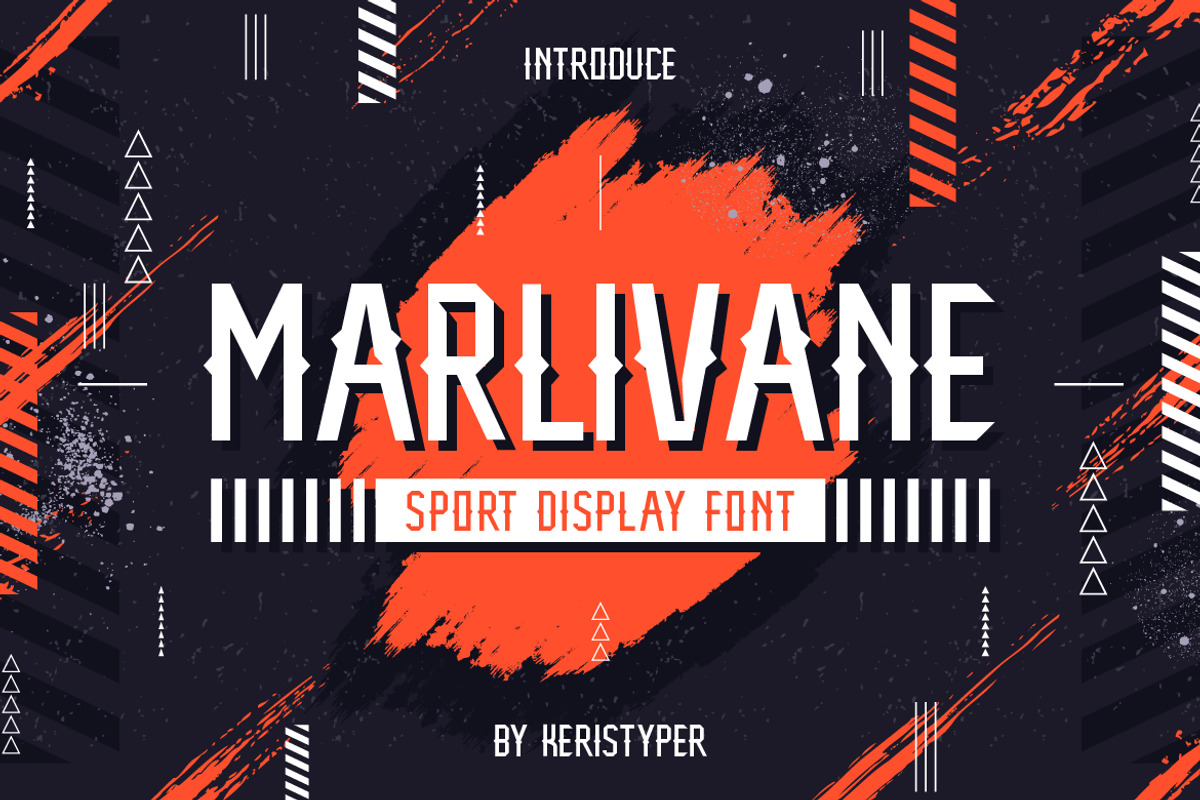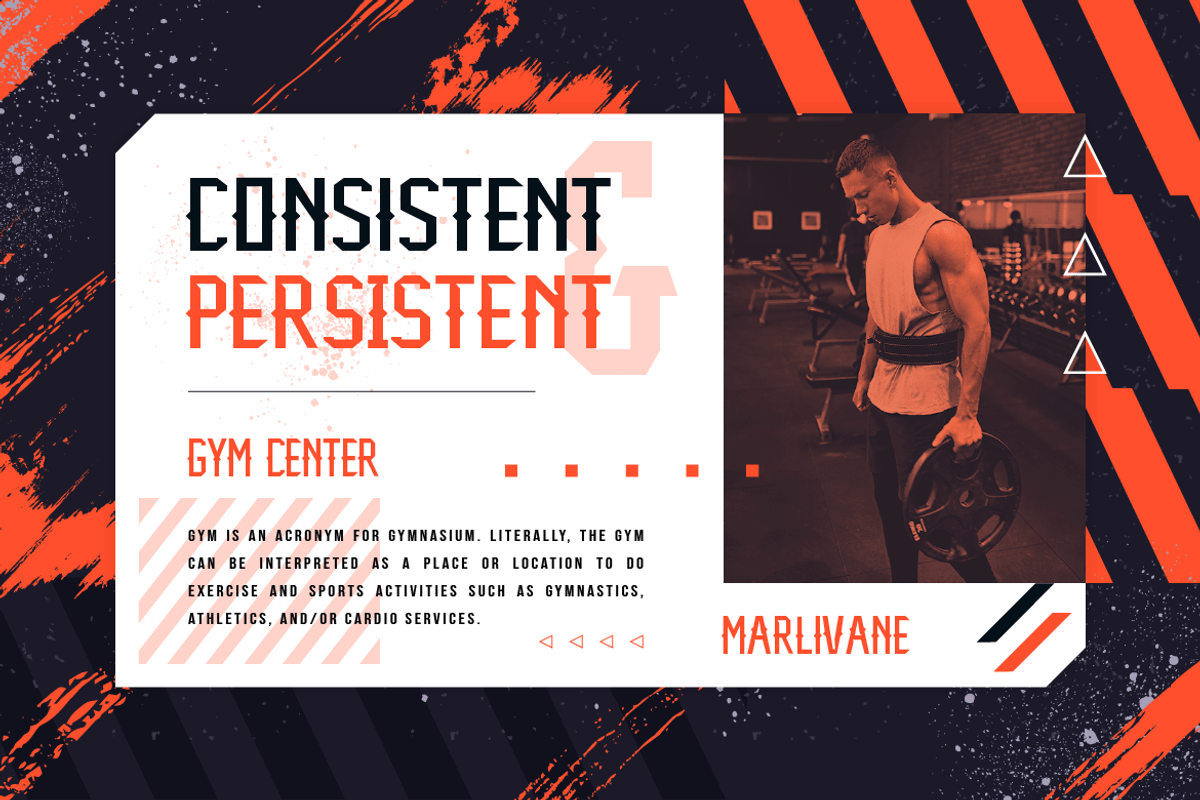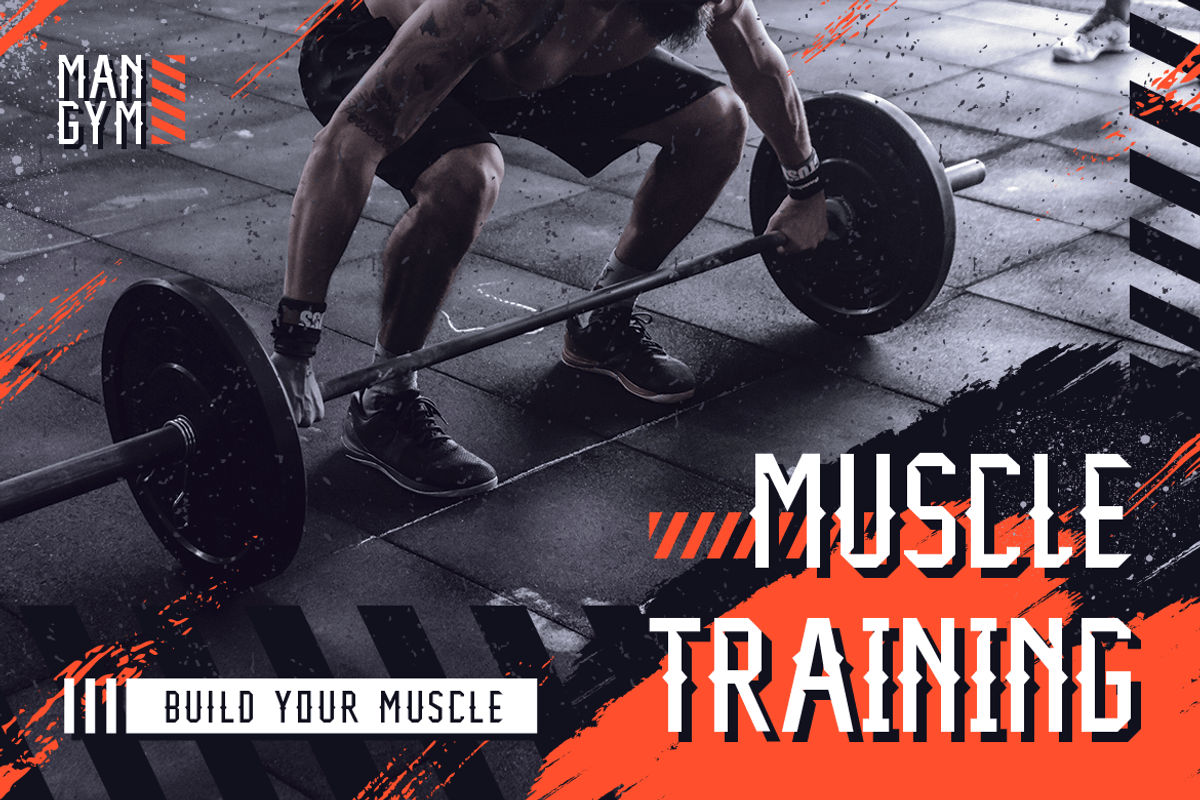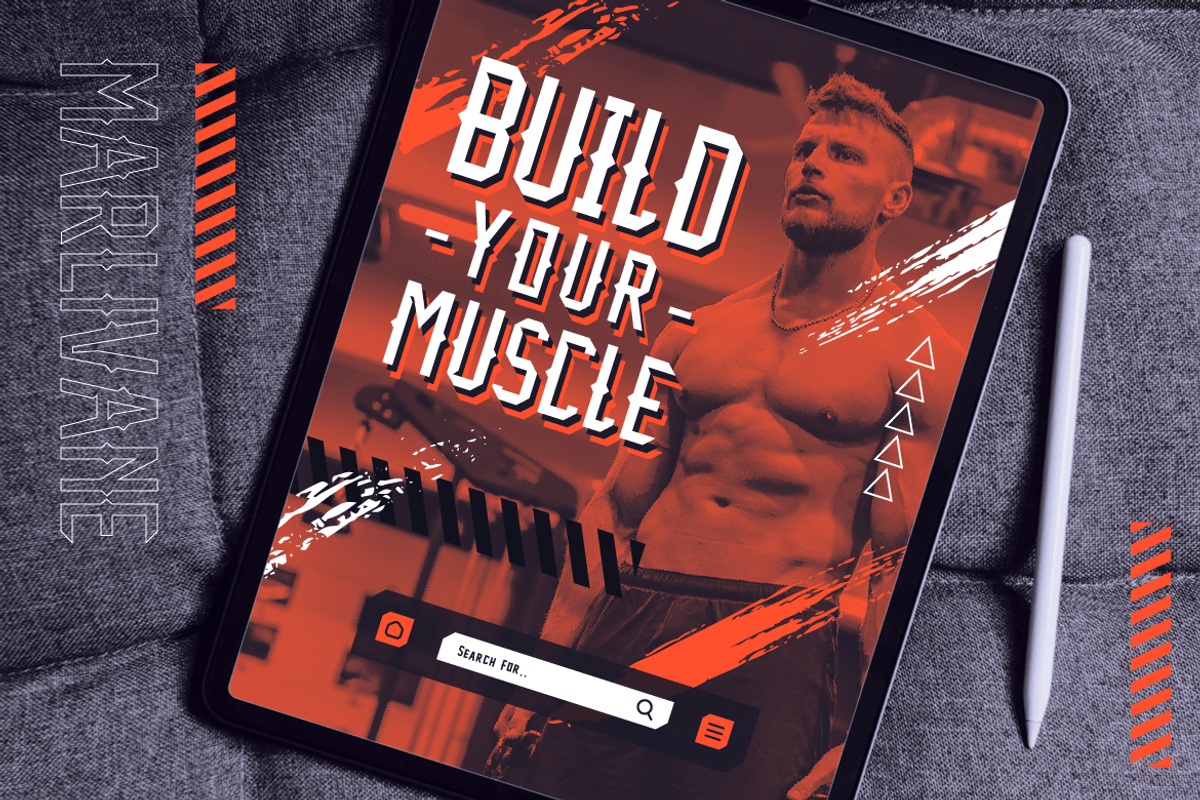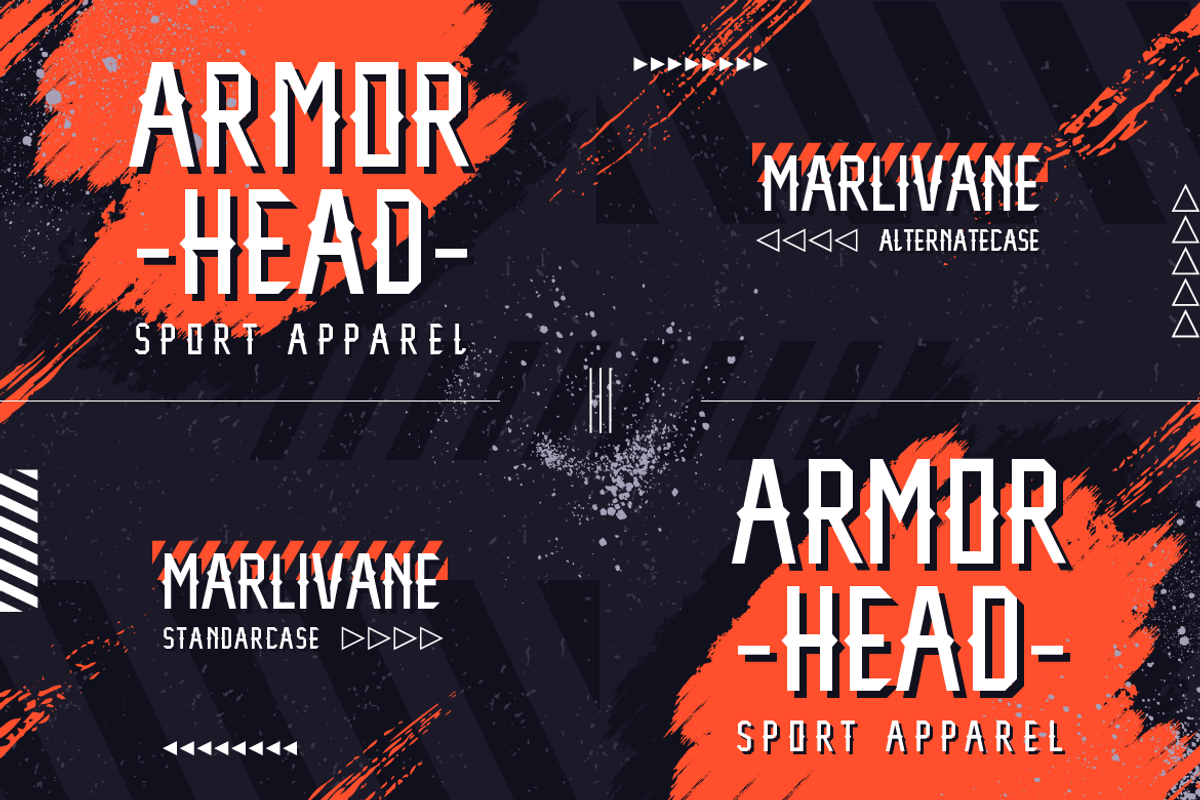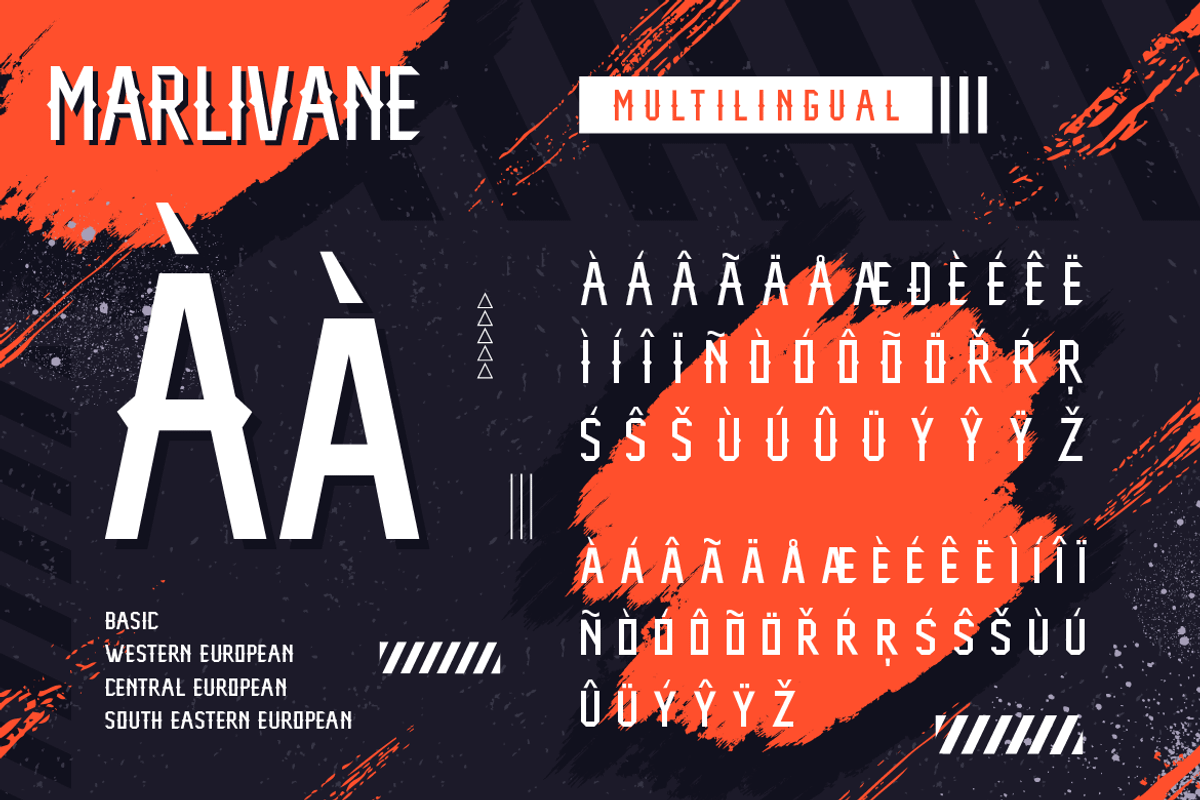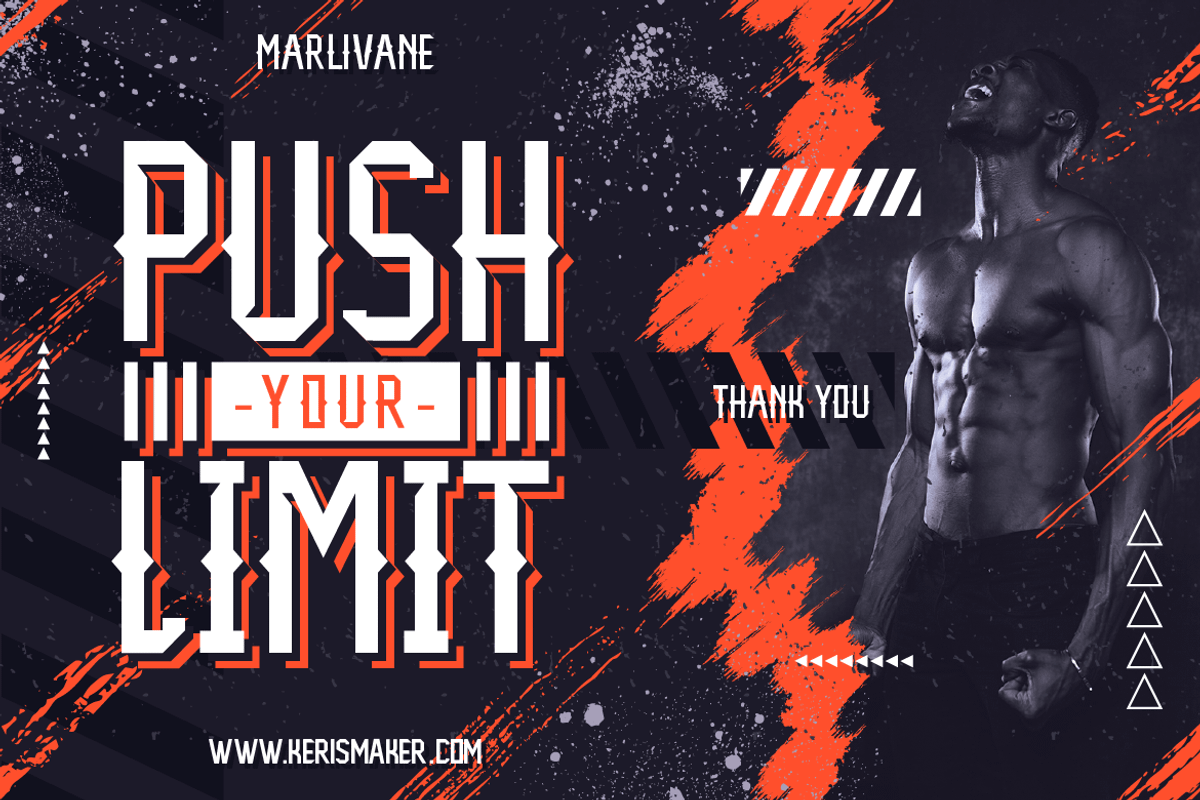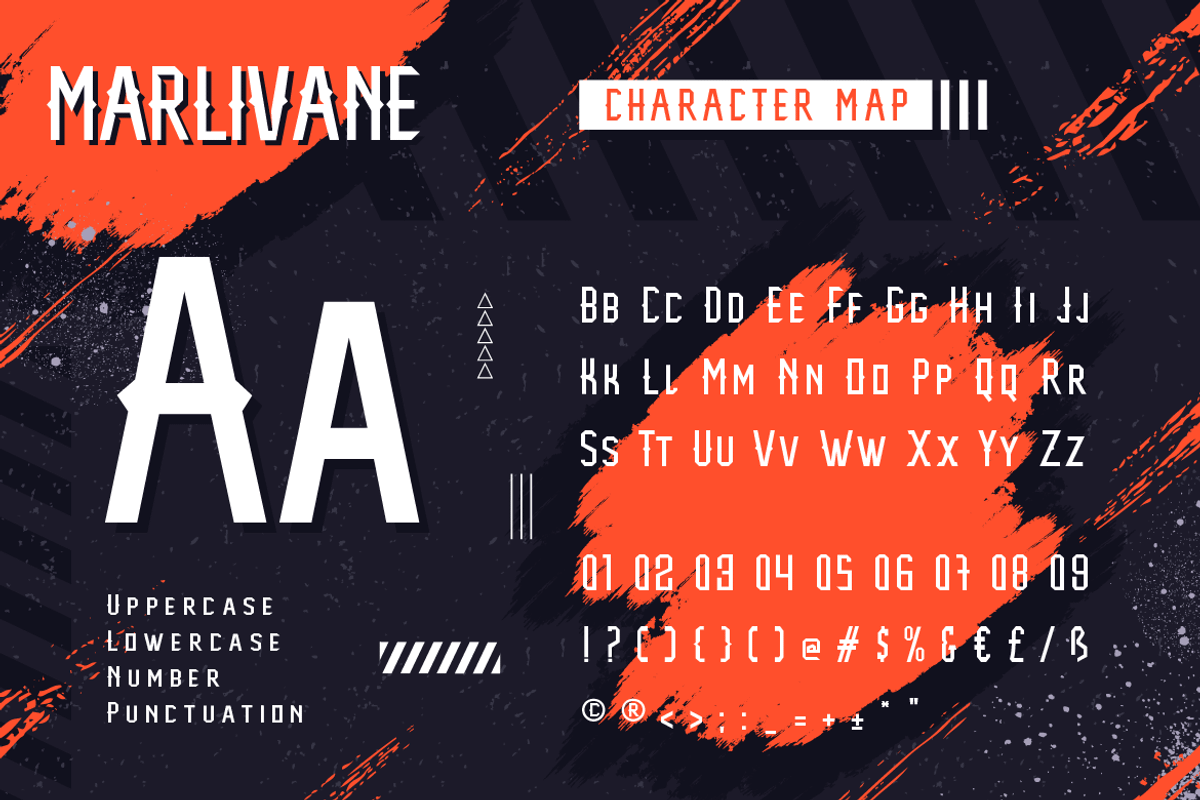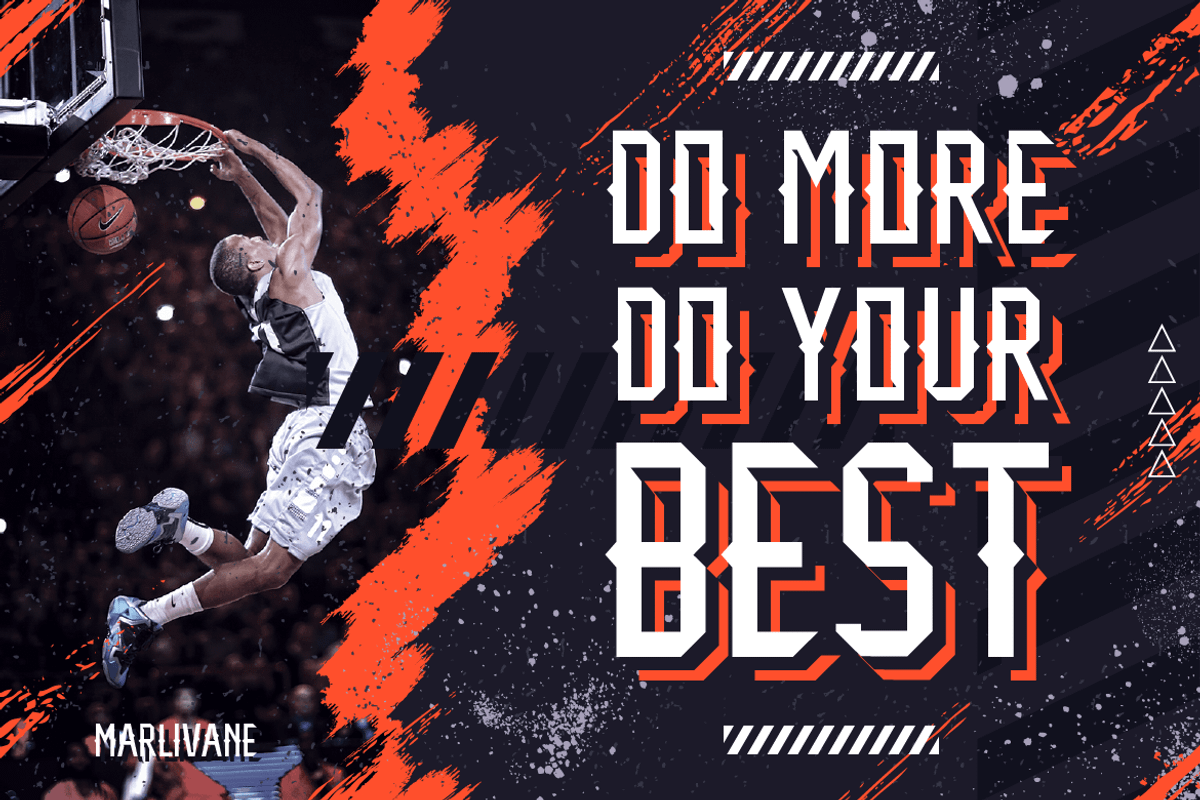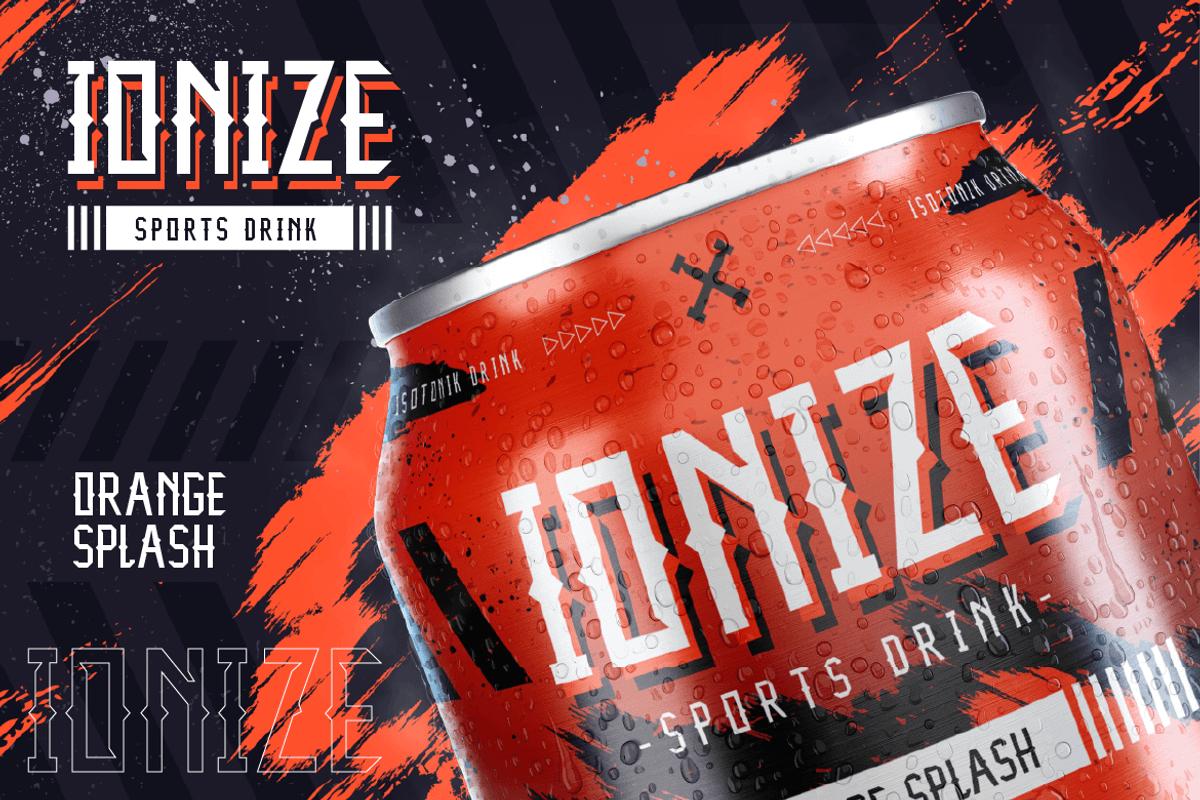
Marlivane
Marlivane has a strong characteristic sports display font that is suitable for Esports or sports activity. This font is good for logo design, Social media, Movie Titles, Books Titles, short text even long text letters, and good for your secondary text font with sans or serif.
- Standard Uppercase & Lowercase
- Multilingual : ä ö ü Ä Ö Ü ß ¿ ¡
- Alternate & Ligature